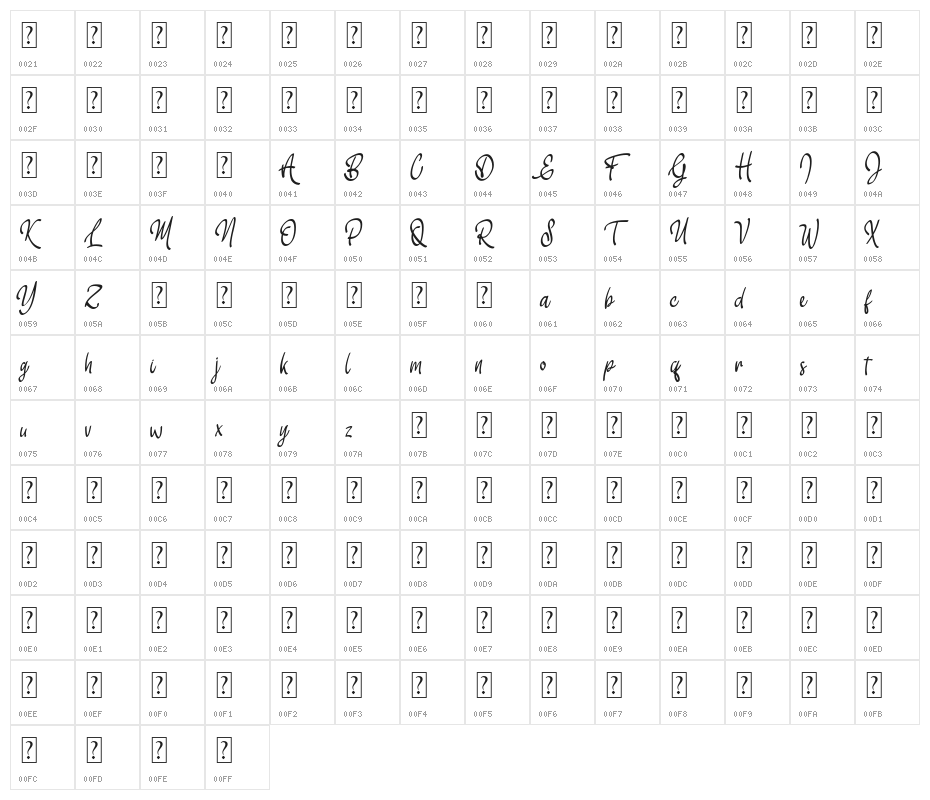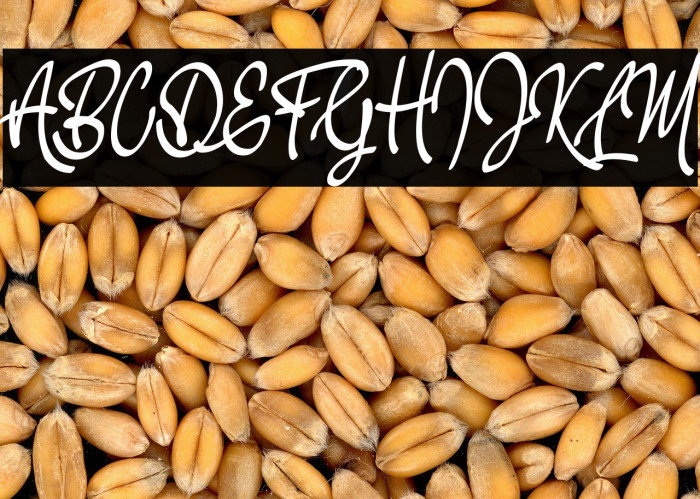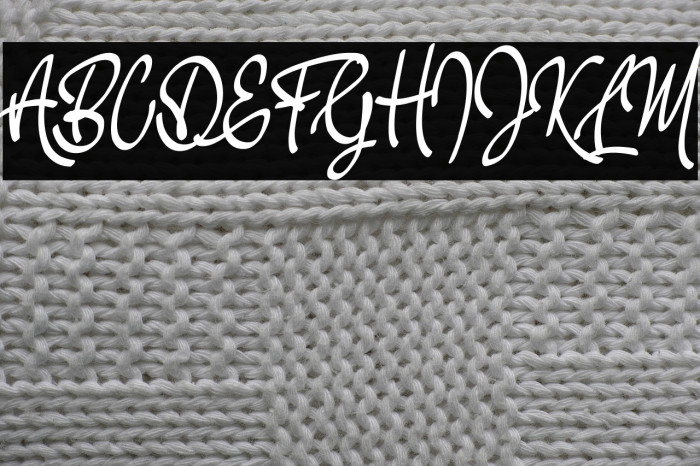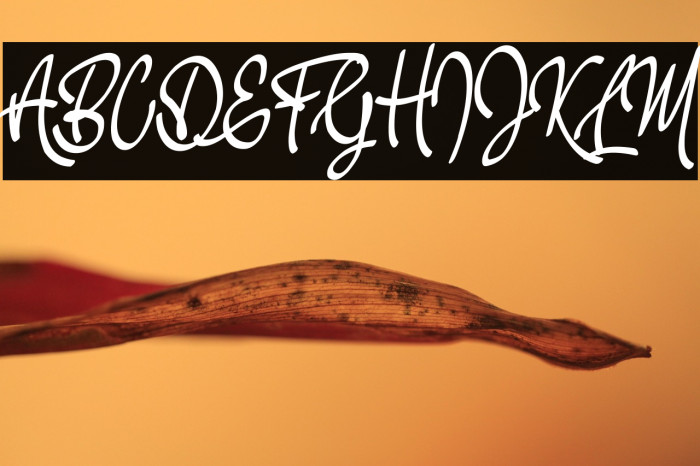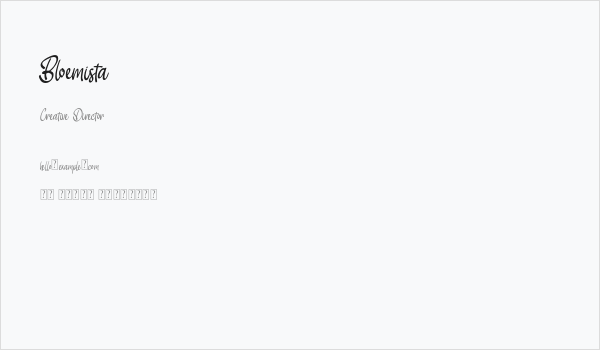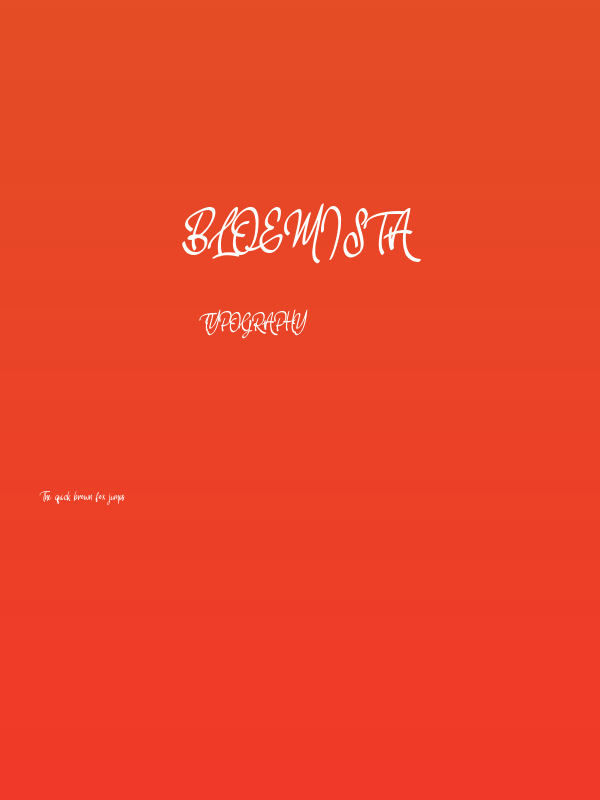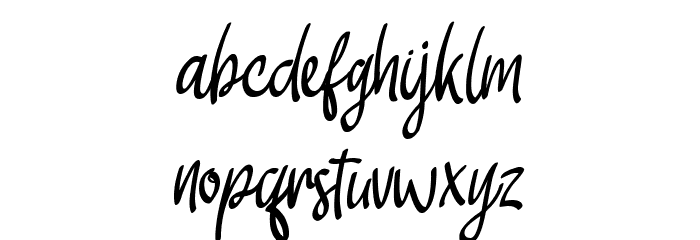
Bloemista Font
Bloemista Description
This font features a flowing, cursive style with elegant, sweeping strokes that give it a handwritten appearance. The uppercase letters are characterized by their dramatic loops and curves, while the lowercase letters maintain a consistent fluidity that enhances readability. The font's design is both artistic and sophisticated, making it suitable for a variety of creative applications. The characters are well-spaced, ensuring clarity and legibility even in smaller sizes. This font exudes a sense of grace and charm, perfect for projects that require a personal touch.